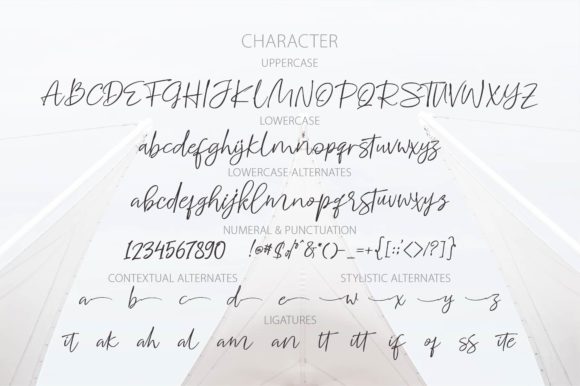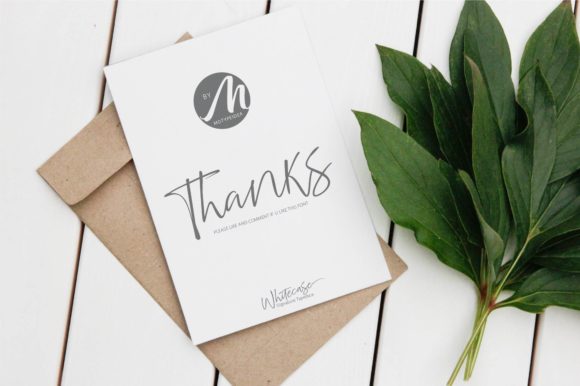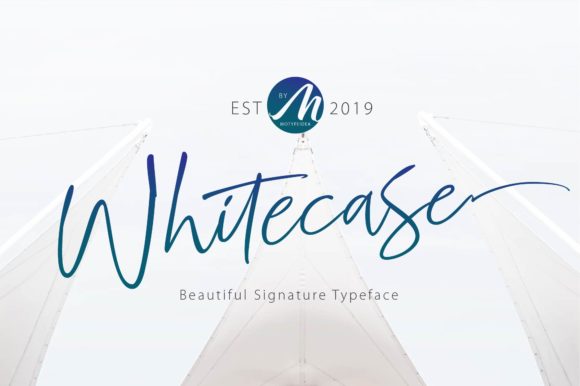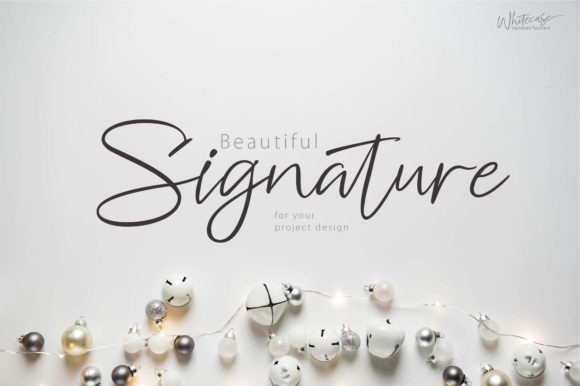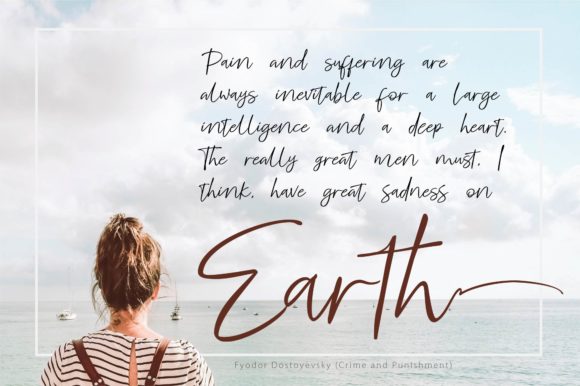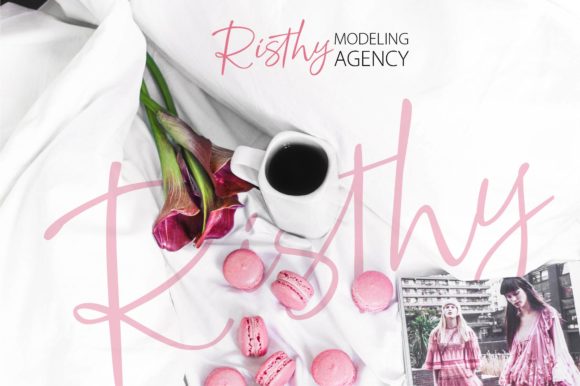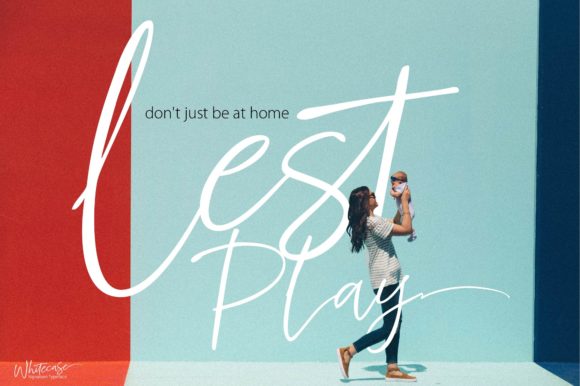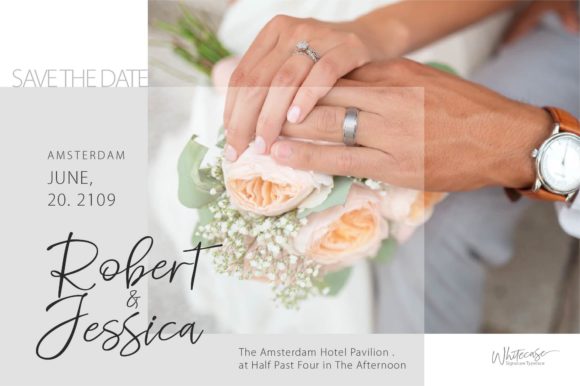
Whitecase Font
About Whitecase Font
Whitecase is a light, yet elegant handwritten font with an undeniable charm. Fall in love with its stunning elements, and turn any design project into a true stand out.